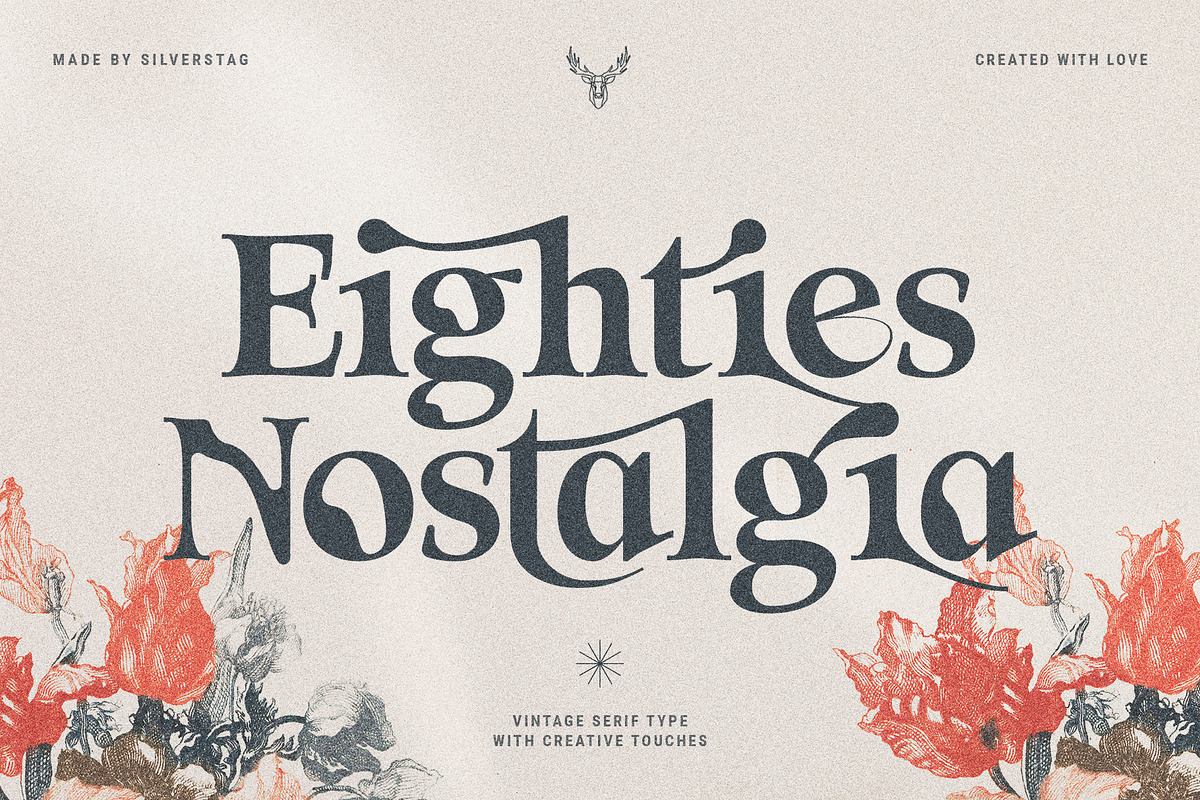
Eighties Nostalgia - Ligature Serif Free Download
Eighties Nostalgia - Ligature Serif Font Free Download
Eighties Nostalgia - Ligature Serif Font Free Download is a stylish and retro-inspired typeface designed to evoke the spirit of the 1980s. Featuring bold, distinctive letterforms with creative ligatures, this font is perfect for retro branding, posters, logos, album covers, and designs that need a touch of vintage flair. The ligatures add a unique and artistic twist to the traditional serif style, giving it a modern yet nostalgic feel.
Whether you’re designing for a retro brand, creating promotional material for a throwback event, or simply adding some eighties vibes to your project, Eighties Nostalgia provides a bold and dynamic look.